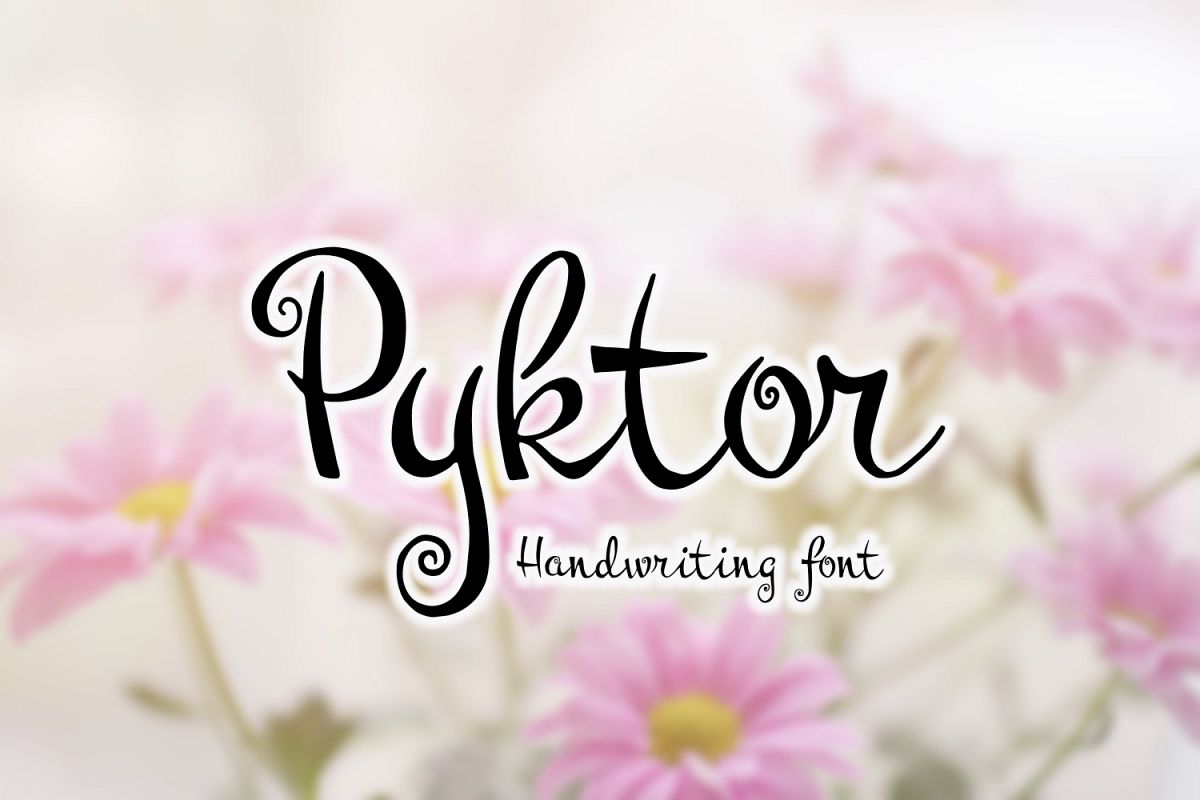
Pyktor Font
Pyktor
Pyktor is a hand crafted typeface.
Character set includes 159 characters (uppercases, lower cases, numbers, europian characters, currency symbols, punctuations).
Great for invitations, titling, signage, logo, poster, flyers or t-shirts design, headlines, and more!